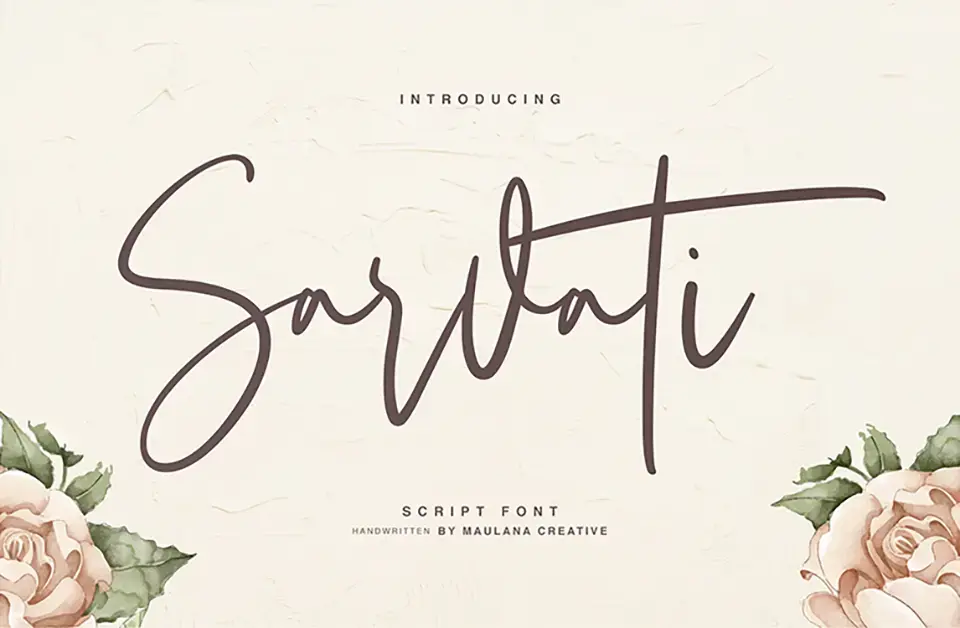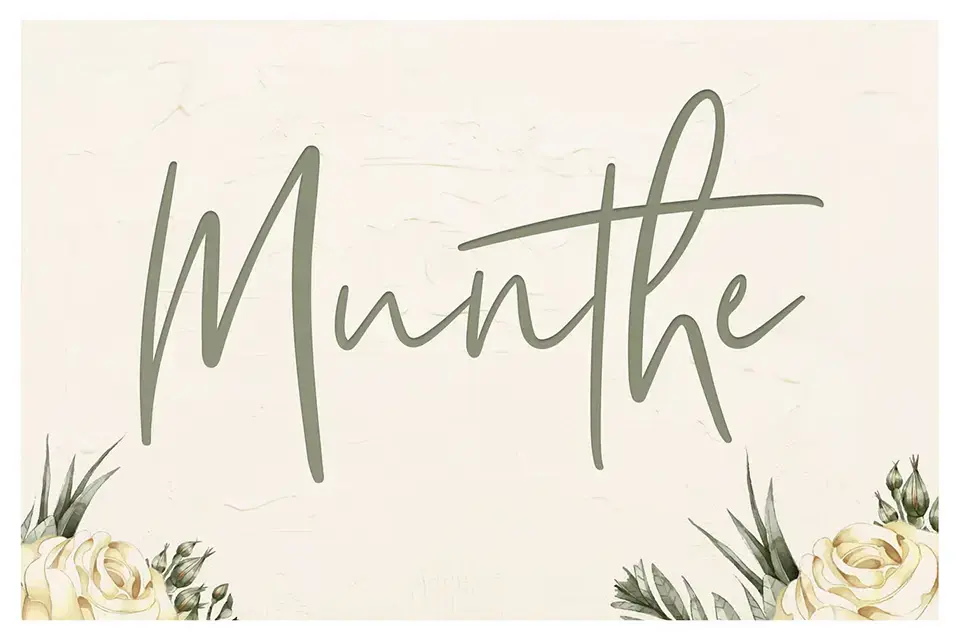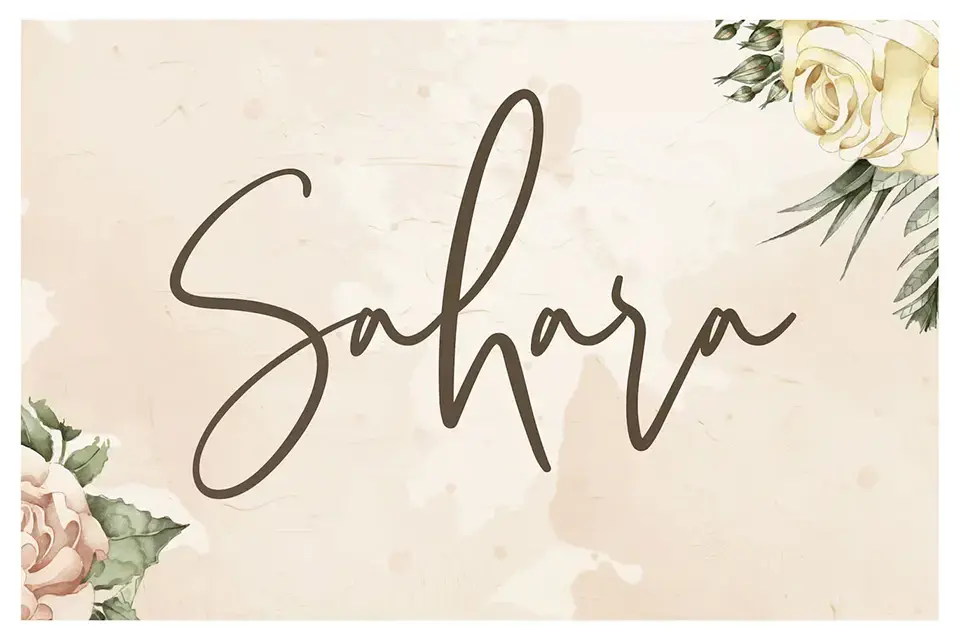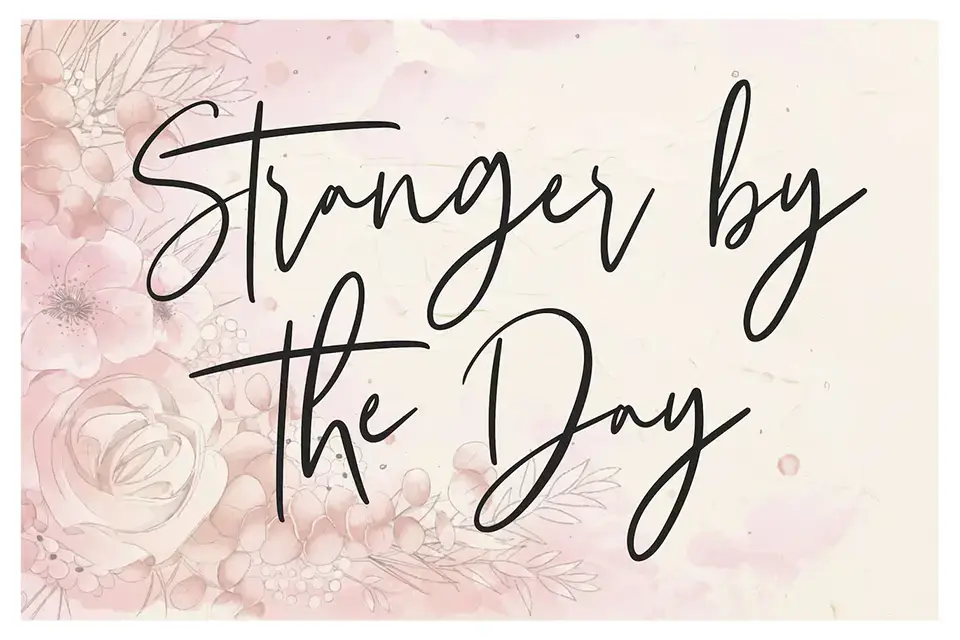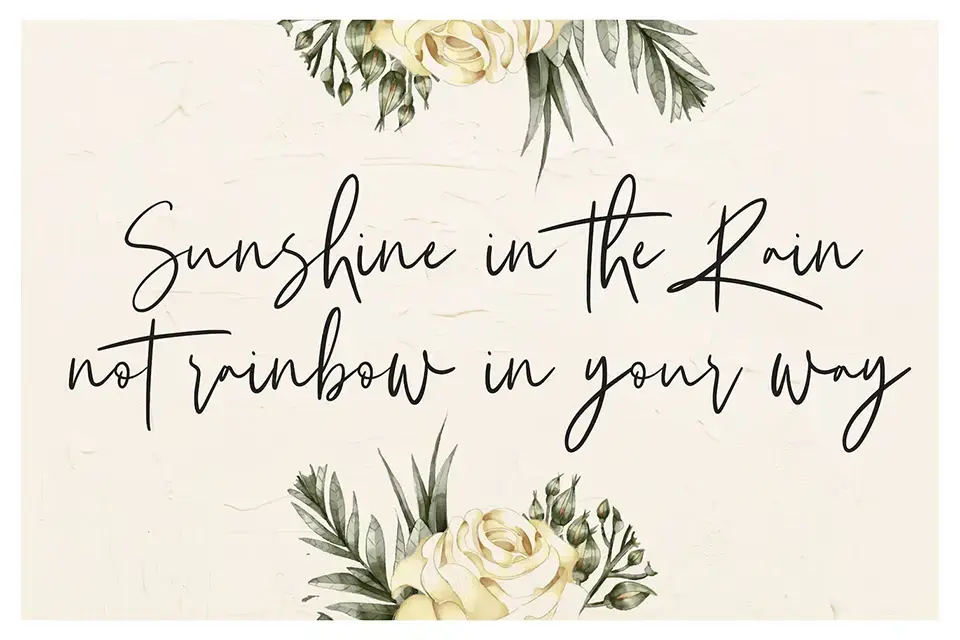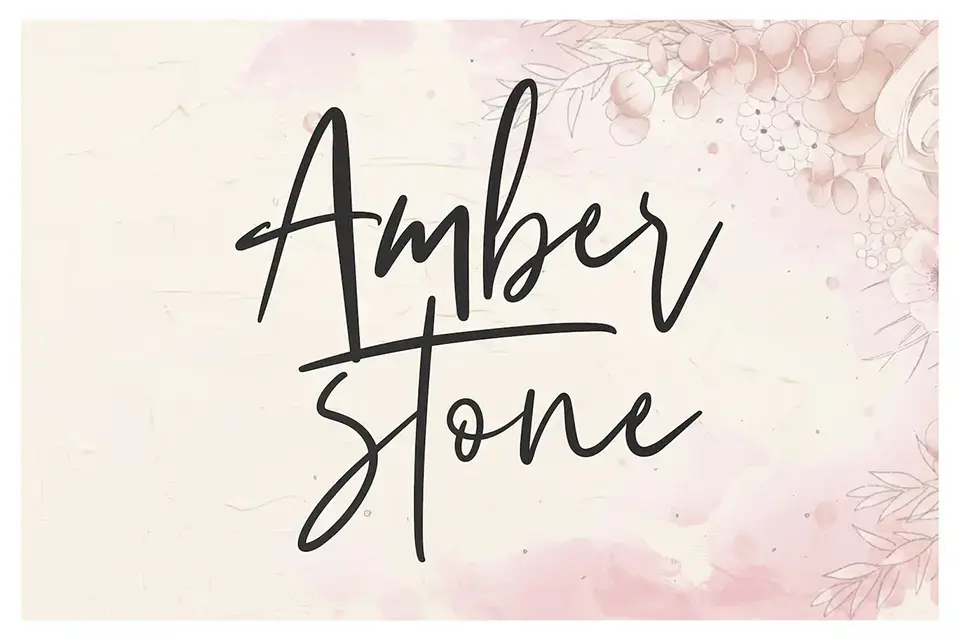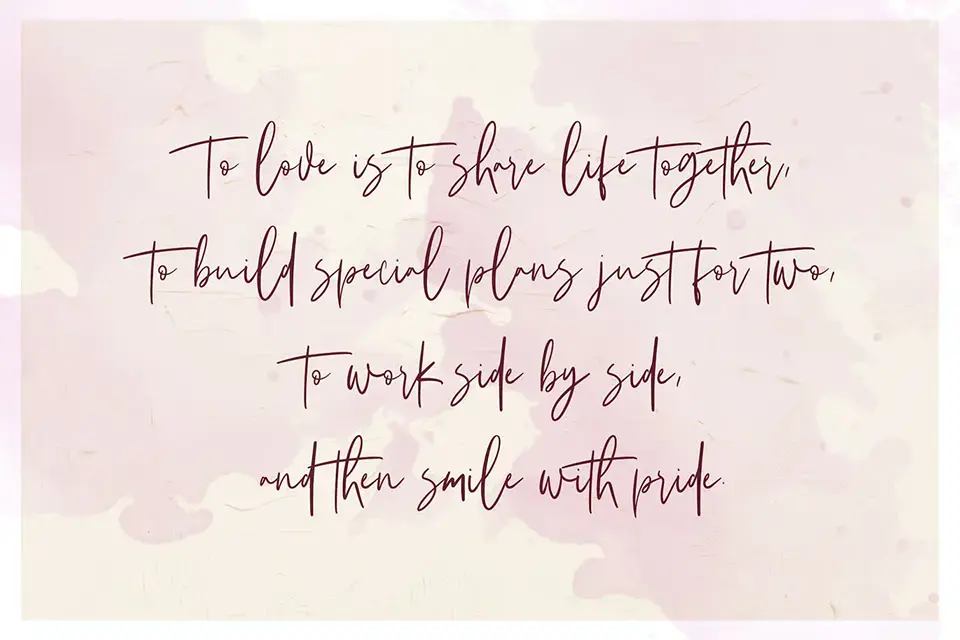
Sarvati Font
Designed by Maulana Creative
Sarvati is a handwritten script with rounded strokes, steady medium weight, and tight but legible connections that give text a relaxed, pen-drawn rhythm. The letters lean slightly and use soft curves rather than sharp angles, so it reads as informal and approachable rather than formal calligraphy. I find it works especially well on branding for cafés, boutique packaging, thank-you cards, and quote graphics where you want warmth and personality without looking messy. It is less convincing for dense body copy or serious corporate documents, where the playful movement can feel distracting and reduce long‑form readability.
handwritten-style logos and wordmarks
product or gift packaging with a personal note feel
social media quote graphics and story titles
greeting cards and casual invitations
long paragraphs or body text-heavy layouts
formal corporate or institutional branding
very small captions where strokes may blur
highly technical documents or UI interfaces